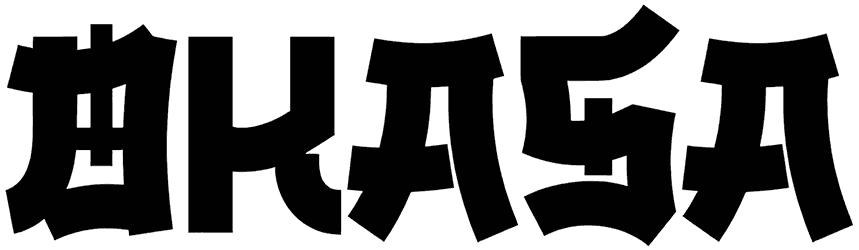
Okasa Font
Okasa is an interesting font with a foreign look, and it is a Japanese-style Chinese font. It can be used effectively in the creation of any design project, such as restaurant menus, banners, posters, and so on. Despite lacking numbers, this samurai font is in the first place! You can now download it for free from the large collection of fonts that RB offers.